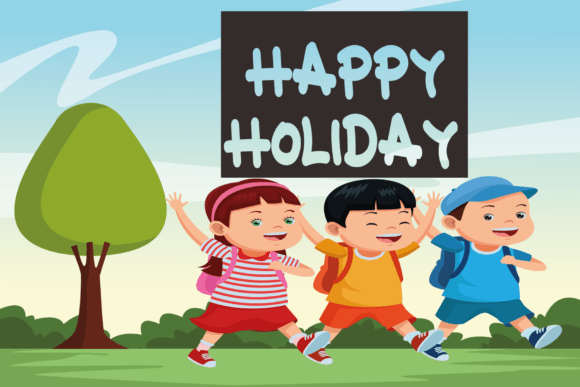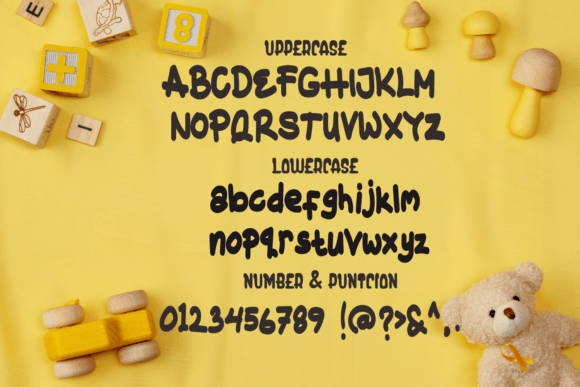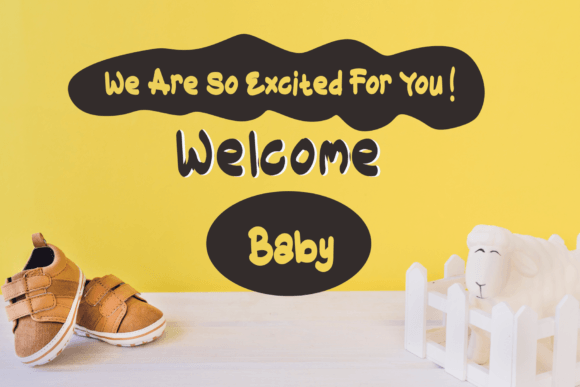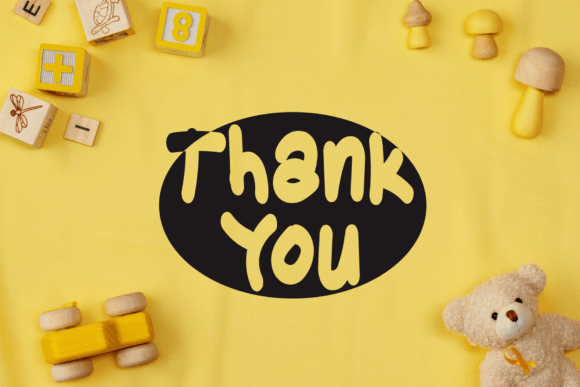
Discover the Joy of Happy Bear Font
Have you ever been browsing through a font library, searching for the perfect font to capture the essence of childhood wonder? Maybe you stumbled upon a project that required a dash of playfulness and whimsy. Whatever the moment was, you’ll be delighted to know that you’re about to discover the perfect companion for your creative endeavors: Happy Bear Font.
Happy Bear Font is a lovable handwritten font that embodies the essence of cuteness and playfulness. Its rounded and chubby letterforms resemble the handwriting of a cheerful bear, adding a delightful touch to any design. This font captures the essence of innocence and joy, making it perfect for projects targeting children, baby-related themes, or anything that needs a touch of whimsy.
As a designer, you’ll appreciate the versatility and charm that Happy Bear Font brings to your projects. Whether it’s creating invitations, nursery decor, or playful branding, this font is sure to bring a smile to anyone’s face.
Happy Bear Font Key Features
- Unique Characteristics: The Happy Bear Font features a playful, hand-drawn design with bold lines, rounded edges, and a cheerful personality, making it ideal for children’s books, educational materials, and fun projects.
Happy Bear Font Review
Happy Bear Font is a cheerful and playful font that’s sure to bring a smile to your face. ✨ The rounded edges and childlike charm of the font make it perfect for children’s books, party invitations, and other fun projects. The font is also highly legible, even at small sizes, which is a big plus for designers who need to ensure their text is easy to read.
- Fun and playful personality that’s perfect for kids’ projects
- Highly legible, even at small sizes
- Works well for casual, creative projects
However, there are some limitations to consider. ⚠️ The font may not be suitable for more formal or professional projects, as it can come across as too childish or immature. Additionally, the font may not be as versatile as some other fonts on the market, and it may not have as many customization options.
- May not be suitable for formal or professional projects
- Limited customization options
- Not as versatile as some other fonts
Overall, I think Happy Bear Font is a great choice for designers who need a fun and playful font for their projects. While it may have some limitations, it’s a great addition to any designer’s toolkit.
Tips for Getting the Most Out of Happy Bear Font
Happy Bear Font is perfect for creating playful and whimsical designs. Here are some tips to get the most out of it:
- Use it for children’s book illustrations, party invitations, or other fun designs.
- Combine it with bold colors and playful graphics for a lively look.